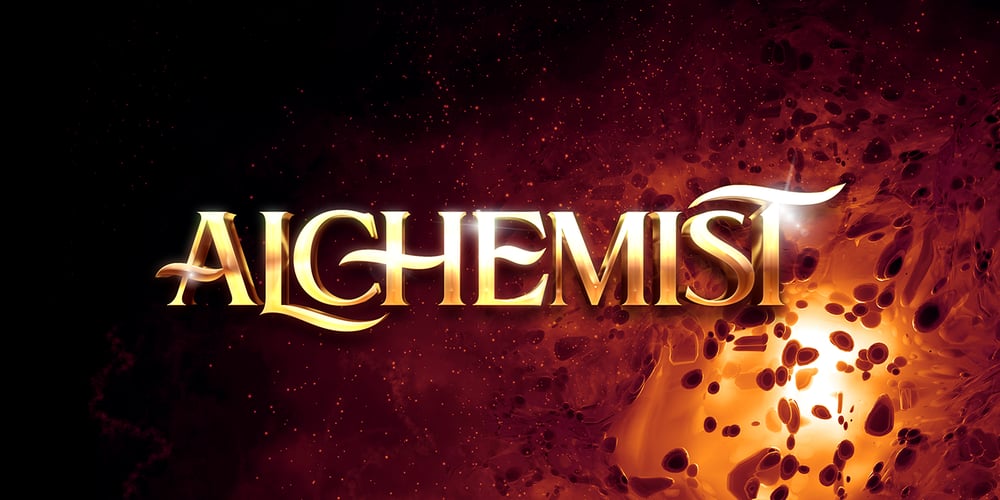
Alchemist Font Family was designed by Jason Carne and published by Carmel Type Co.. Alchemist contains 1 styles and family package options. Inspirited as much by nature and the elements as it was by the decorative and ornate alphabets of early sign-painting and lettering books, Alchemist aspires to become the next surefire, go-to staple in the display type community. This semi-condensed, high contrast, and stylish take on classic Roman forms is certain to stand out in your arsenal.Alchemist lends itself adeptly to signage, headlines, cinematic and gaming titles, packaging design and much more. This protean display face can shift and adapt to your every need with over 100 alternate characters and more than 40 ligatures. Explore this massive 500+ character font today and see what you can create with it. 100+ Stylistic Alternates Standard & Discretionary Ligatures Uppercase & Lowercase Numerals & Punctuation 500+ glyphs Supports 75+ Latin based languages OTF file Design by Jason Carne